Selecting the best font for business cards is more than just a design choice; it’s a strategic branding decision. The typeface you choose immediately influences how your business is perceived. According to Forbes, initial brand impressions are formed within a mere seven seconds, making font selection a crucial element in that process.
Therefore, selecting the perfect font isn’t about trendiness but about purpose. To help you with that, let’s explore how you can make a smart, strategic choice that supports your brand image.
Key Takeaways
- How your business card is perceived largely depends on the fonts you pick.
- Exploring a variety of great fonts can make your business card really stand out.
20 Best Font for Business Cards Ideas Your Must Try
No matter if you’re creating a business card for a top-level executive, an artistic freelancer, or your personal brand, this curated list of 20 good fonts for business cards is going to make your design stand out and leave a memorable impression.
1. Axaria
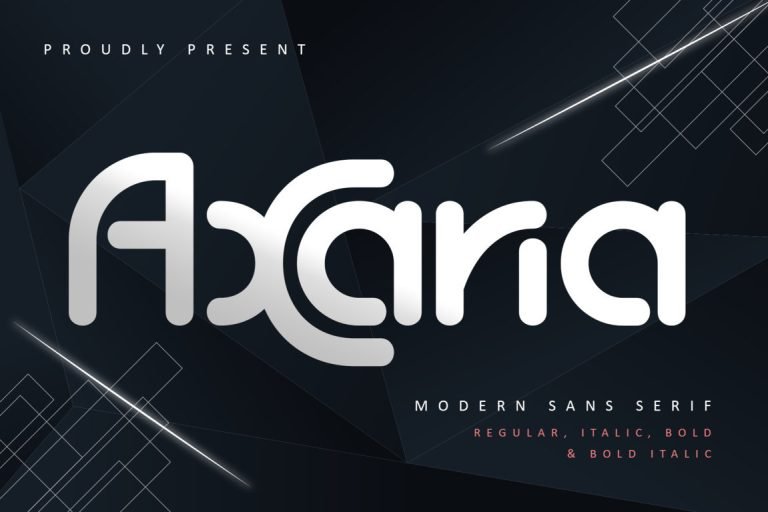
This modern serif exudes elegance with its subtle tapered strokes. It commands attention without overpowering other design elements. Ideal for professional services seeking refined credibility.
2. Reality Stone
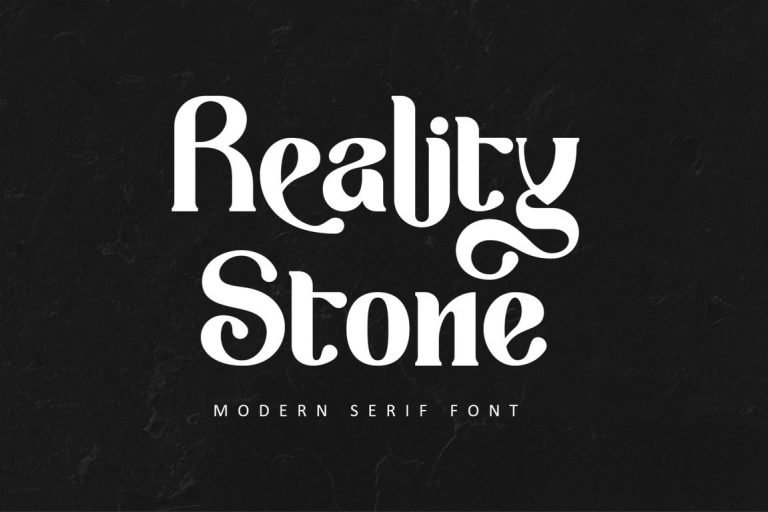
A clean geometric sans‑serif with balanced proportions. It projects contemporary clarity, making names and details easy to read. Great for tech startups or minimalist brands.
3. Bolday
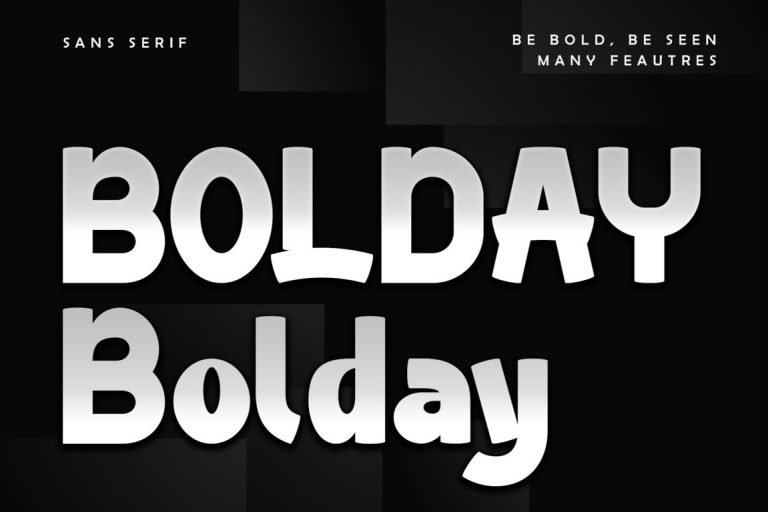
Featuring bold strokes with soft curves, Bolday grabs attention instantly. It’s assertive yet approachable, suitable for creative or bold branding. Excellent for call‑to‑action text on cards.
4. Qinferly
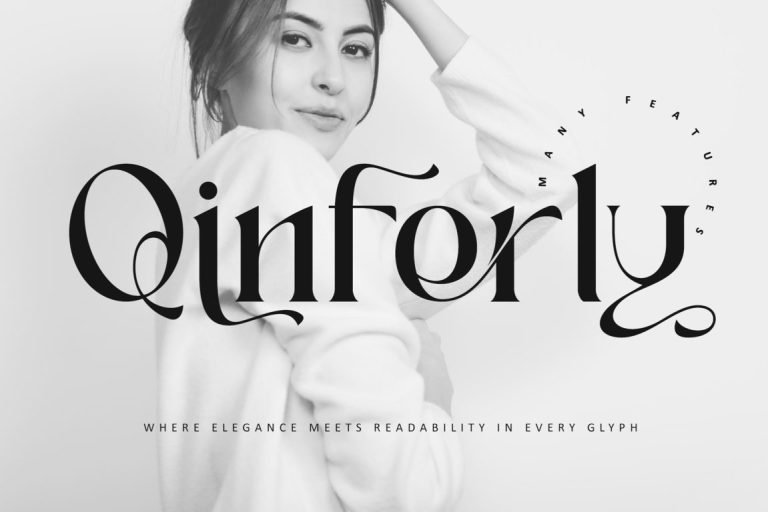
A sharp sans‑serif with narrow letters and high x‑height. It optimizes readability in limited space. Works well for compact layouts on executive business cards.
5. Shutter Photography
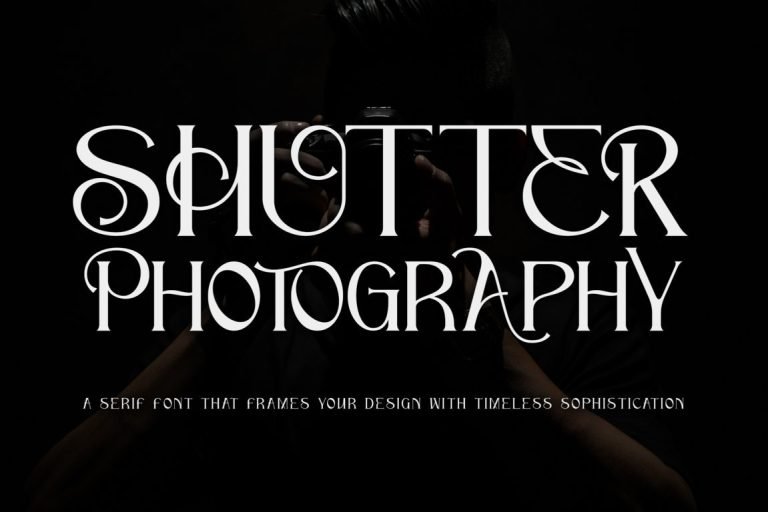
Elegant script font with gentle flourishes and smooth transitions. It adds a personal, handcrafted feel while maintaining sophistication. Best suited for creative professionals or boutique brands.
6. Queenlery
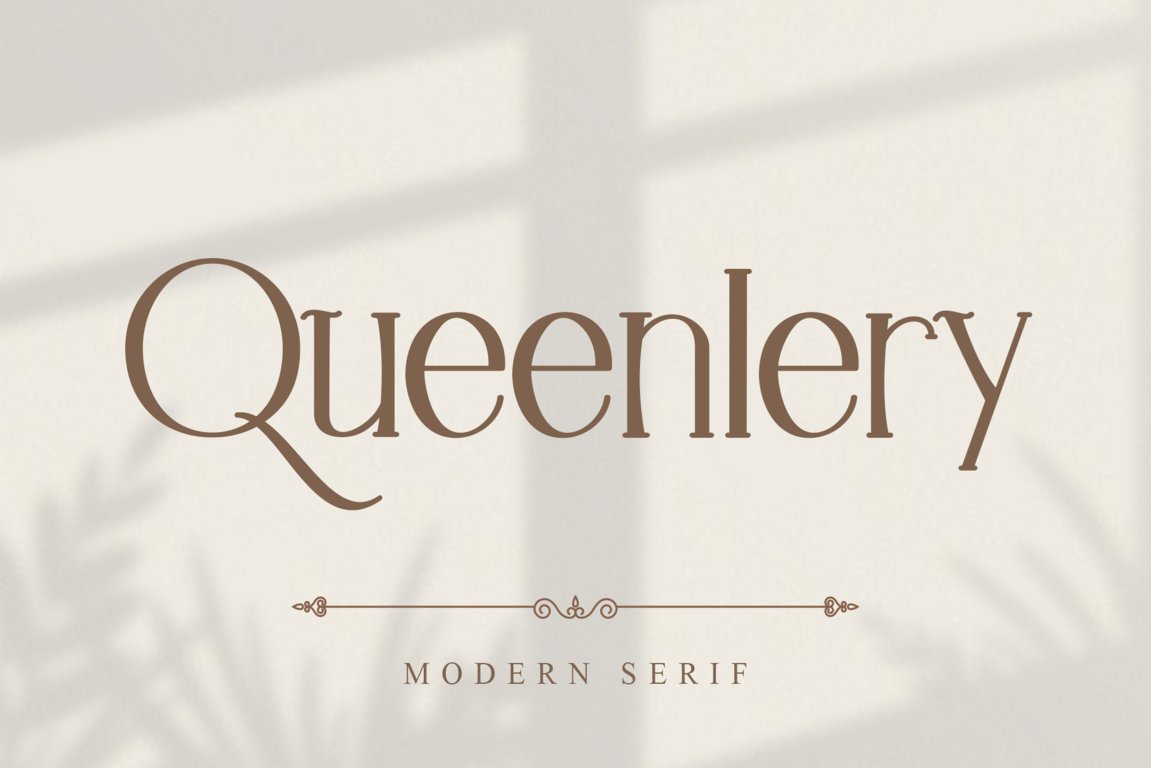
This high‑contrast serif embodies regal refinement and timeless luxury. It’s one of the best font for business cards that aim to convey prestige and heritage. Ideal for upscale consultants or jewelry designers seeking a premium feel.
7. Executive Boss
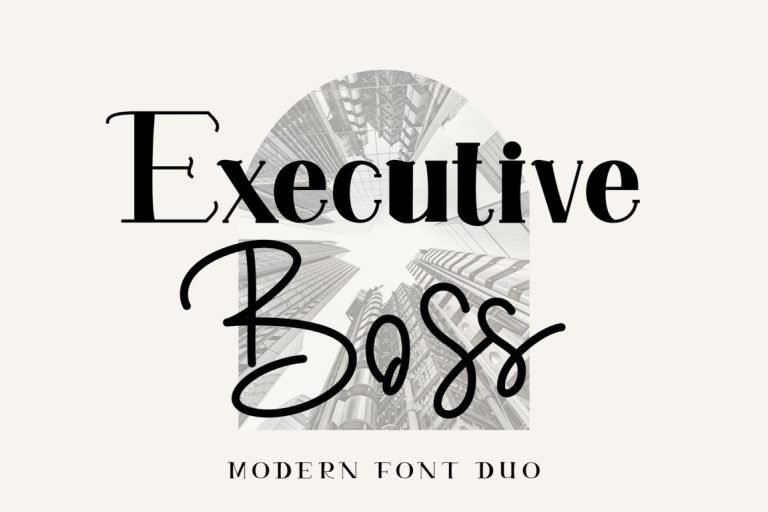
A commanding sans‑serif with strong verticals and clean geometry. It projects authority and competence, perfect for corporate executives. This font can instantly elevate a card’s professional tone.
8. Aringgo
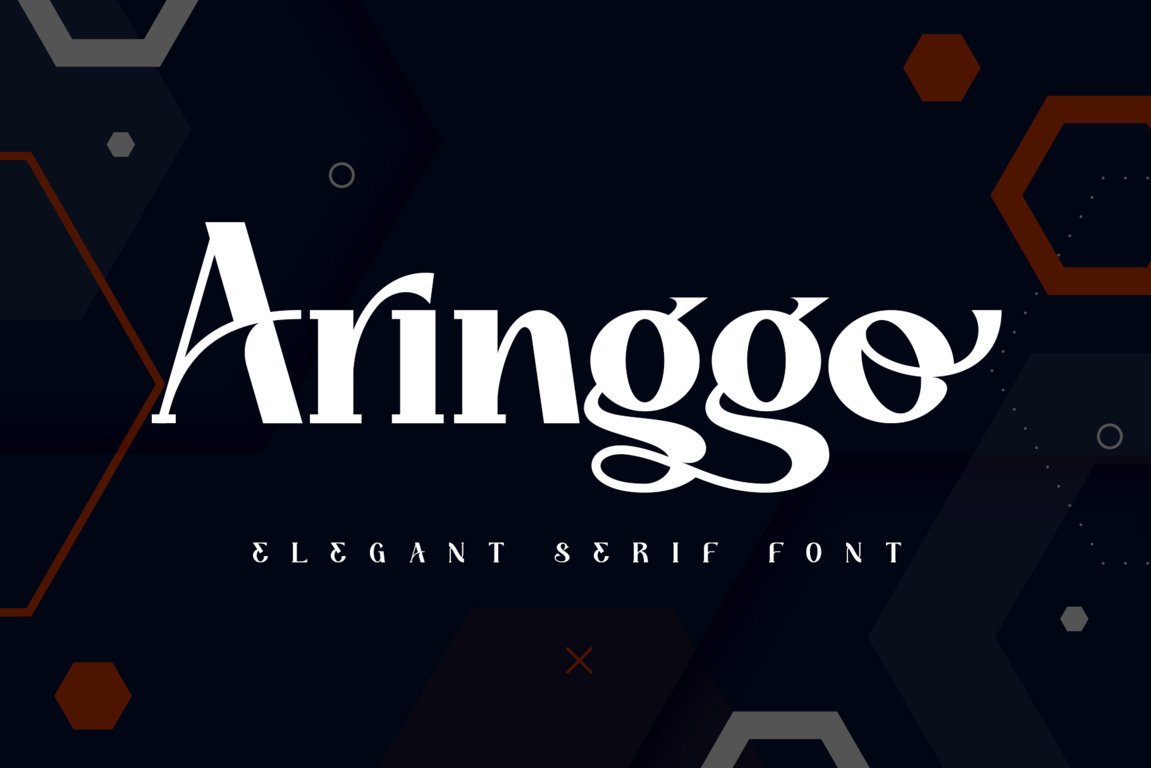
Rounded sans‑serif with friendly curves and corporate polish. It exudes a modern yet approachable feel, suited to customer‑centric businesses or service industries.
9. Hollirood
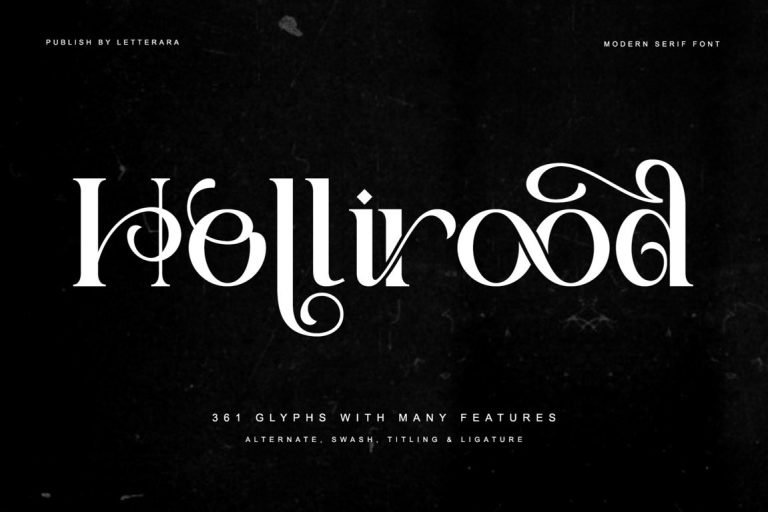
Traditional serif with open bowls and classic structure. It evokes trust and academic integrity, ideal for legal, financial, or educational professionals.
10. Agaste
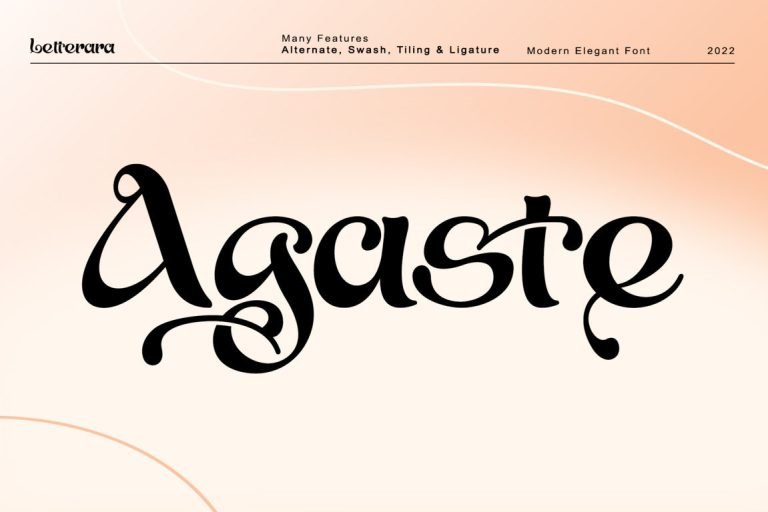
Slim serif with elegant proportions and elongated serifs. It feels refined and contemporary, complementing minimalist designs. Works great for designers focused on subtle sophistication.
11. Bigrock
A bold slab serif with rugged charm and geometric cuts. It commands attention, reinforcing brand strength with every letter. Among the great fonts for business cards, it’s well-suited for trades, fitness, or outdoor sectors.
12. Cartia
Round serif with soft letterforms that blend warmth and elegance. It delivers personality without compromising readability. Great for boutique businesses and creative freelancers.
13. Tango Silver
Highly modern sans‑serif with sleek, narrow letters and tech vibes. It communicates innovation and efficiency, ideal for digital, tech, or forward‑thinking brands.
14. Christmas Elegant
A decorative serif with festive flair and gentle curves. It adds charm and uniqueness to seasonal or creative brand cards. Best used sparingly for impact.
15. Ocean Trace
Fluid script with maritime swoops and relaxed flow. It captures laid‑back sophistication and artistic energy. Great for travel, hospitality, or lifestyle services.
16. Arveton
Classic serif with refined strokes and timeless form. As one of the best font for business cards, it ensures clarity and trustworthiness in every line. A safe choice for consultants and agencies.
17. Dealyo
Stylish sans‑serif with dynamic slanted cuts and fresh angles. It conveys energy and modernity. Works well for brands aiming to appear bold and trendy.
To ensure your designs work across print ads, digital impressions, and even merchandise, you need licensing that offers flexibility. Fortunately, Letterara Studio provides fonts that allow up to 500,000 prints or product sales under a single license. This makes your design workflow not only easier but also legally secure.Therefore, if you’re ready to invest in quality fonts for professional usage, it’s time to explore trusted resources. Our library is ideal for business cards that aim to leave a lasting impression. Make every word on your card count with the right font!